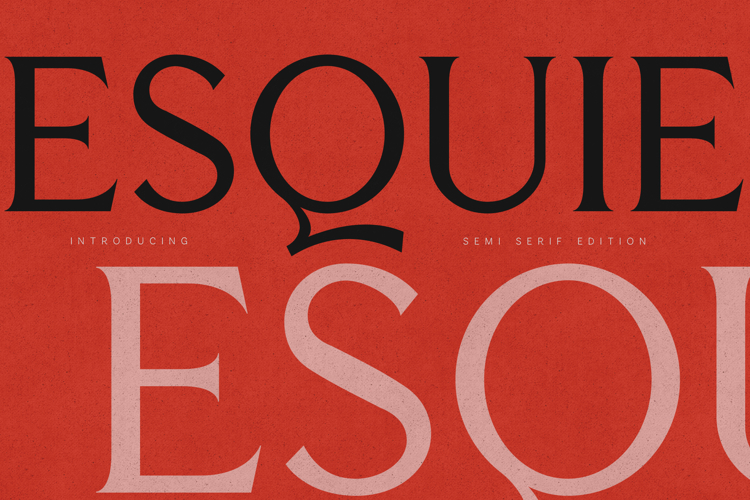
Esque Elegant Semi Serif Typeface
Esque is a refined semi-serif typeface that blends classical elegance with modern minimalism.
Designed with graceful proportions and subtle serif details, Esque delivers a sophisticated typographic voice while maintaining a clean and contemporary structure. The delicate contrast between soft curves and sharp serif accents creates a balanced and expressive character that feels both timeless and modern.
This semi-serif construction makes the typeface versatile for a wide range of design applications—from editorial layouts and branding to luxury packaging and modern visual identities.
Esque offers excellent readability, elegant letterforms, and extended language support, making it a reliable choice for designers who want typography that feels refined, stylish, and distinctive.
Perfect For• Editorial design
• Branding & identity
• Luxury packaging
• Fashion & beauty brands
• Posters and headlines
• Magazine layouts
• Logo design
• Premium typography